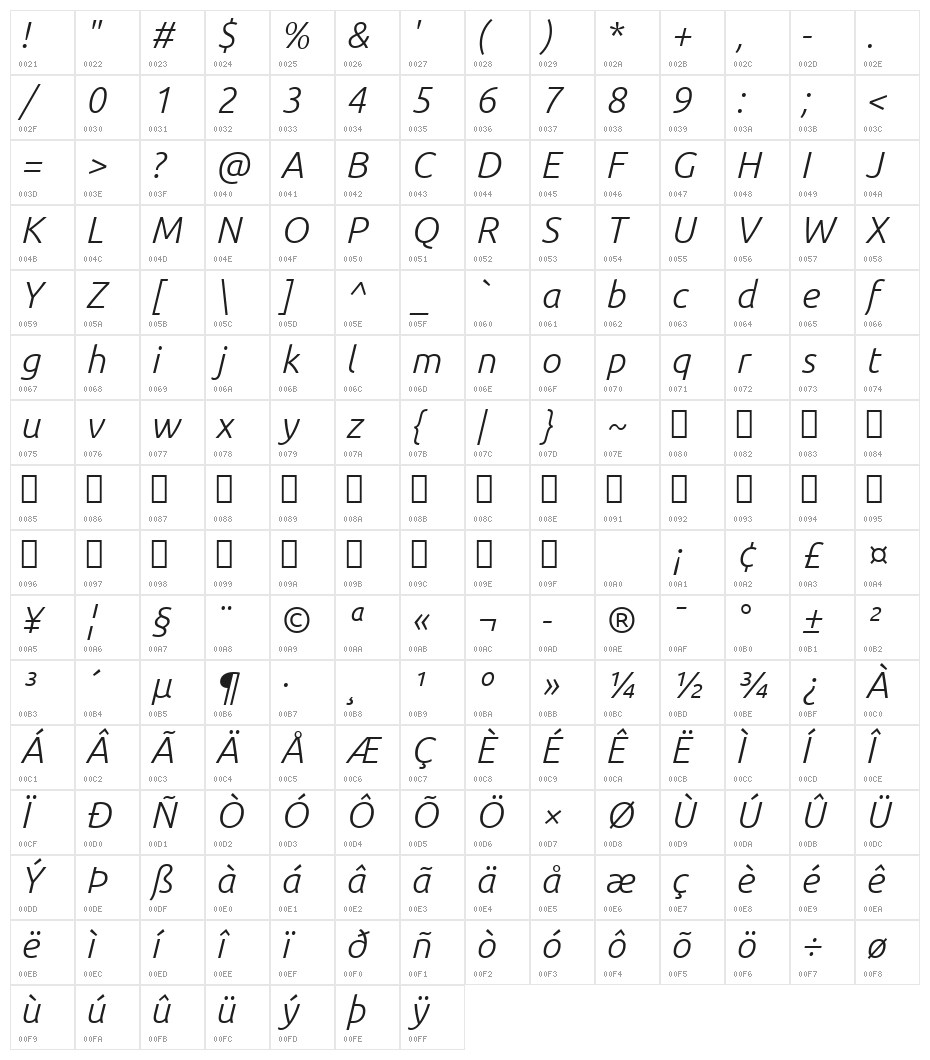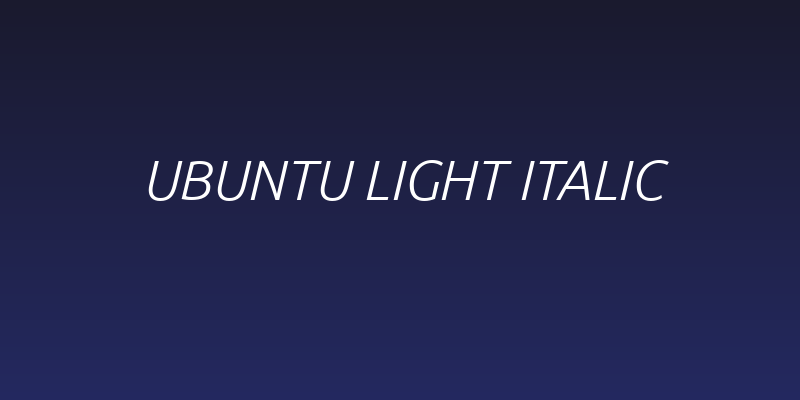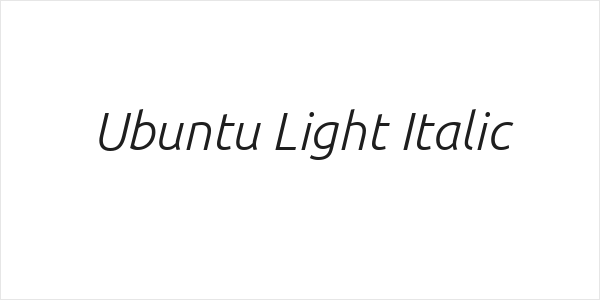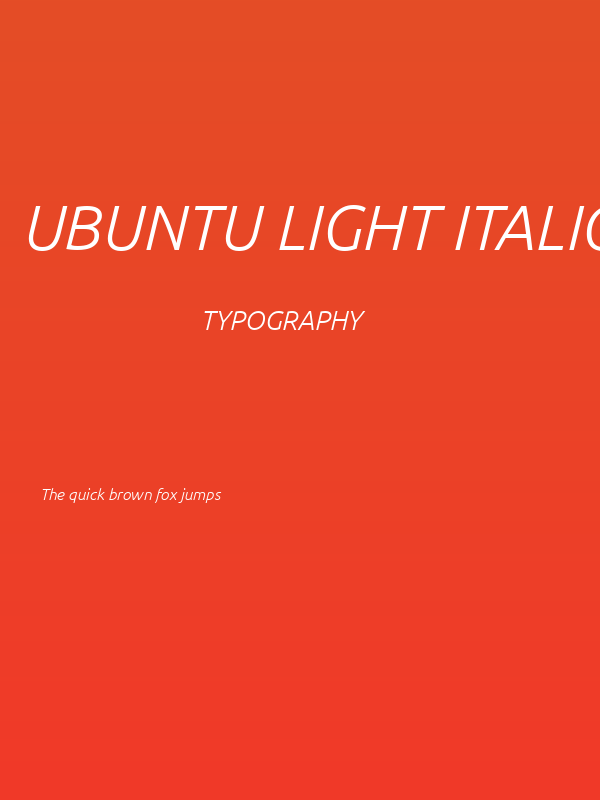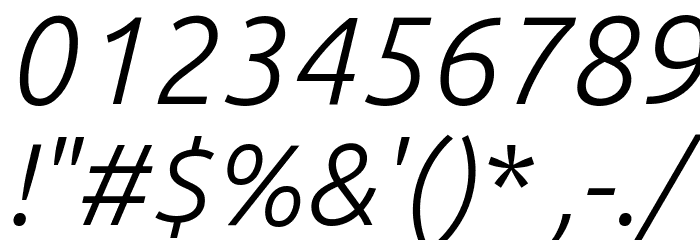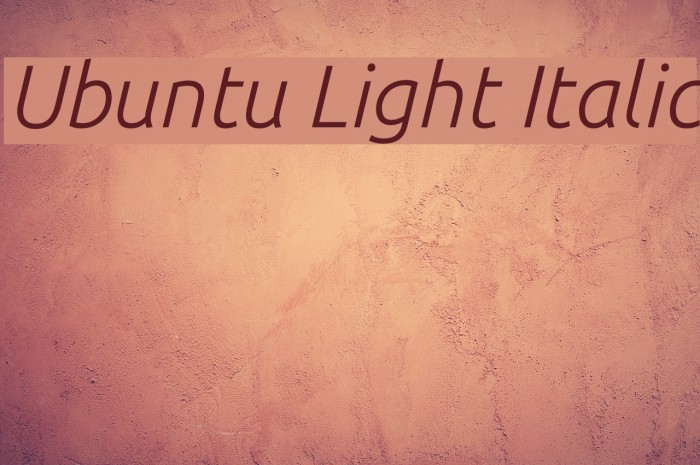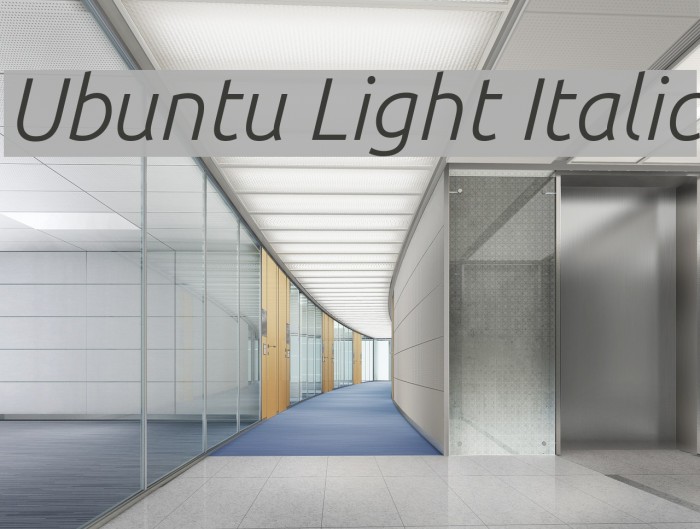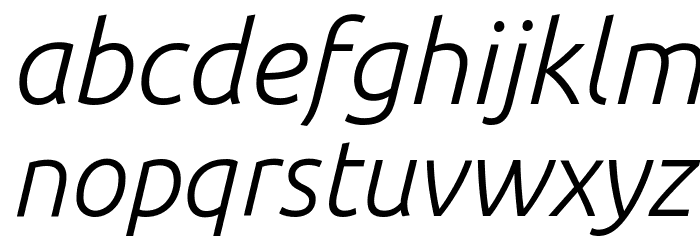
Ubuntu Light Italic Font
Ubuntu Light Italic Description
This font exhibits a sleek and modern design with a light weight and italic style. The characters are elegantly slanted, providing a sense of motion and fluidity. The strokes are consistent and smooth, contributing to a clean and professional appearance. The font maintains a balanced proportion between the height and width of characters, ensuring readability. It features a normal width with slightly tight character spacing, which enhances its contemporary look. The overall style is minimalist, making it suitable for a variety of applications where clarity and elegance are desired.
| Proposed Projects | Ideal for modern branding, elegant invitations, sleek website headers, and stylish print materials. |